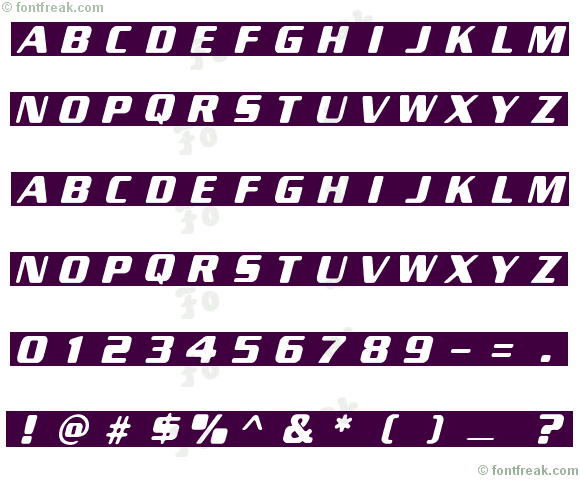
New Space
About New Space
The New Space font, crafted by the talented woodcutter Manero, is a striking display typeface that captures the essence of modern design. This unique font features bold, angular letterforms that convey a sense of dynamism and forward-thinking aesthetics. With a heavy stroke weight and minimal contrast, New Space exhibits a solid presence, making it ideal for grabbing attention in various contexts. The spacing is well-considered, allowing for legibility while maintaining a contemporary feel, which is essential for effective communication in design.
This typeface excels in specific use cases, making it a versatile choice for graphic designers and content creators alike. Its bold nature makes it perfect for eye-catching movie posters, where it can draw viewers in with its futuristic vibe. Additionally, New Space works wonderfully for branding materials, such as logos for tech startups or modern businesses looking to convey innovation. Restaurant menus can also benefit from its unique style, creating a memorable dining experience for patrons. Furthermore, it can serve well in promotional materials for events that aim to attract a youthful and tech-savvy audience.
Targeting graphic designers, small business owners, and content creators, New Space provides these professionals with a font that stands out in a crowded marketplace. The combination of its contemporary design and versatile application makes it a valuable asset for any project.
In summary, the New Space font free download offers a refreshing take on display typography, combining boldness with modernity. Its ability to convey a sense of innovation and excitement sets it apart from traditional fonts, making it an exceptional choice for those looking to make a statement in their designs.